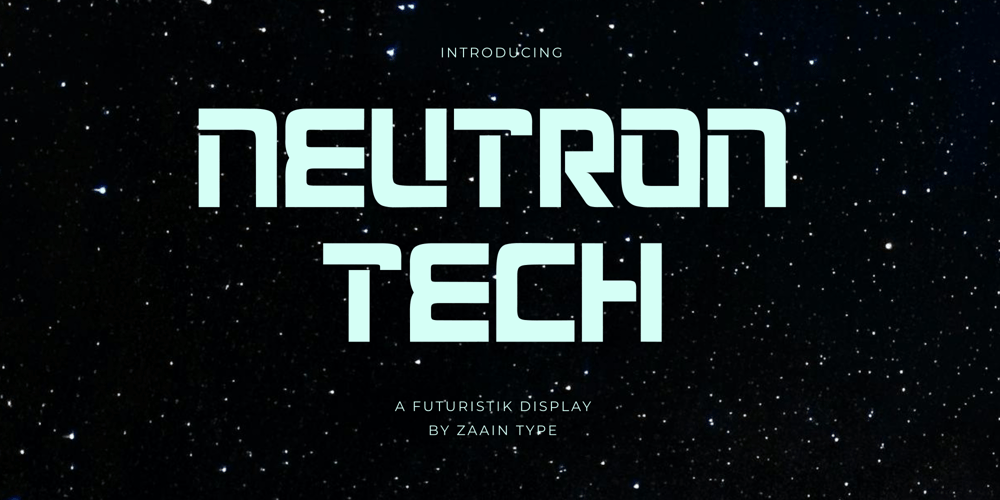
Neutron Tech
Neutron Tech font
Neutron Tech Font Family was designed by Ju Naen and published by Zaain Type. Neutron Tech contains 1 styles and family package options. Neutron Tech is a monoline display font with a sleek, futuristic design. Featuring consistent line thickness and clean geometric shapes, this font offers a cutting-edge look that’s ideal for technology applications and modern branding, delivering both clarity and a high-tech aesthetic–Uppercase